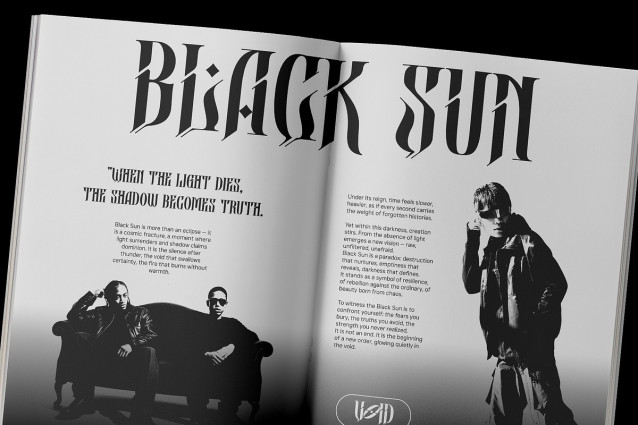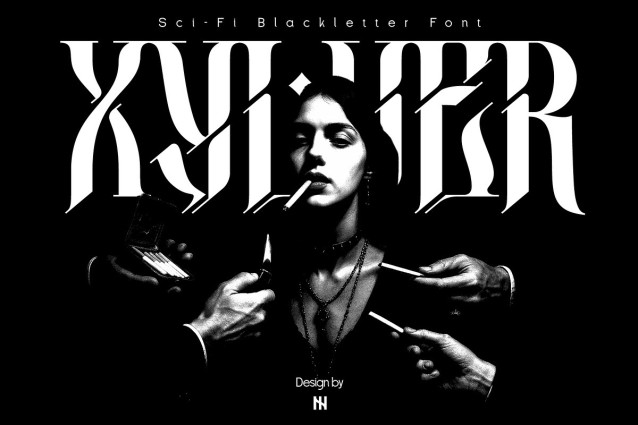
Xylver Font, a blackletter font with a sharp sci-fi twist. Bold, distorted, and dripping with attitude, Xylver merges medieval rebellion with futuristic aesthetics, making it the perfect choice for designs that demand presence, mystery, and dominance. Inspired by dystopian visions, cyber rituals, and gothic street fashion, Xylver was made to break the silence — letter by letter.
Whether you’re crafting album covers, experimental posters, movie titles, or futuristic branding, this typeface offers a thrilling visual identity that stands on the edge of reality and chaos.